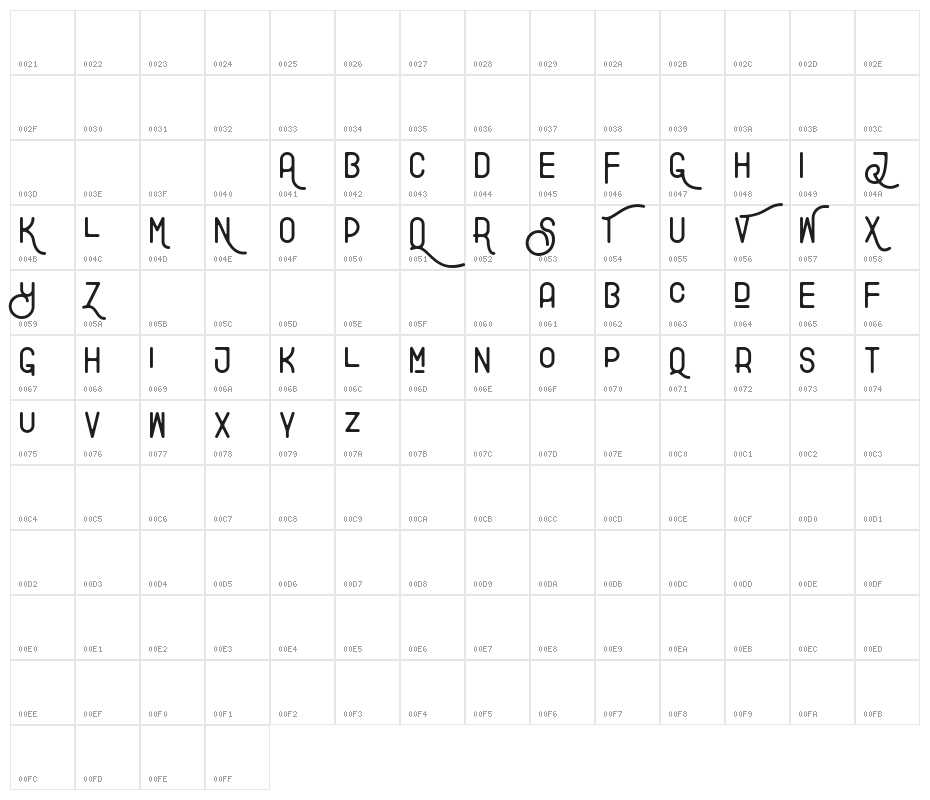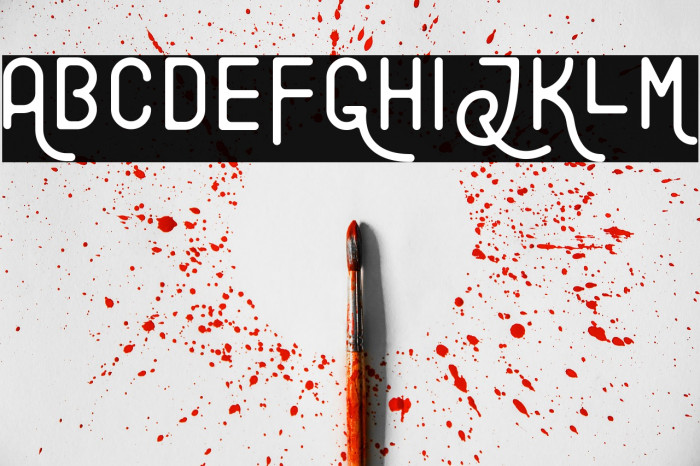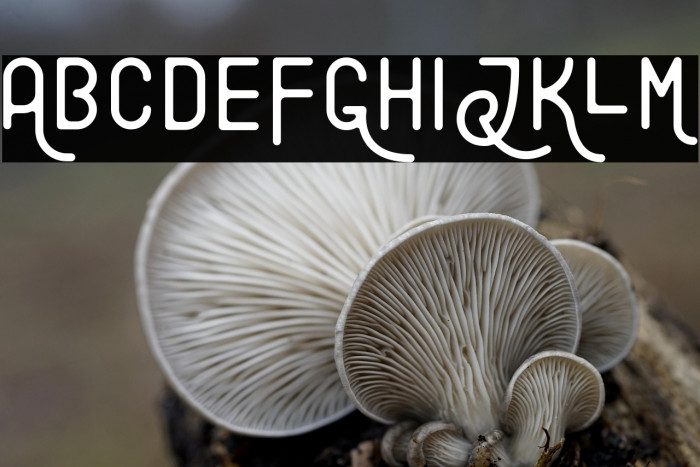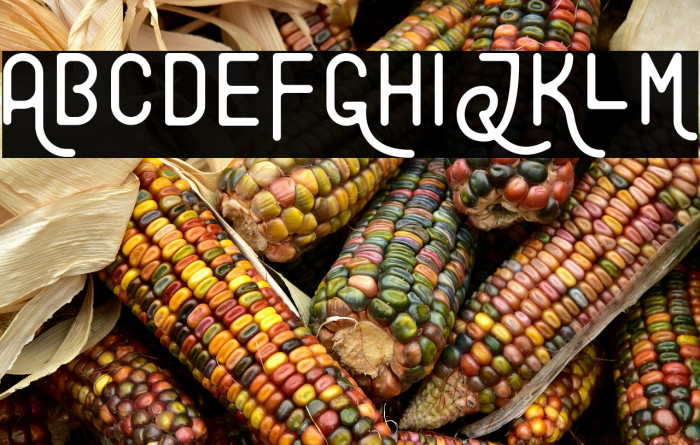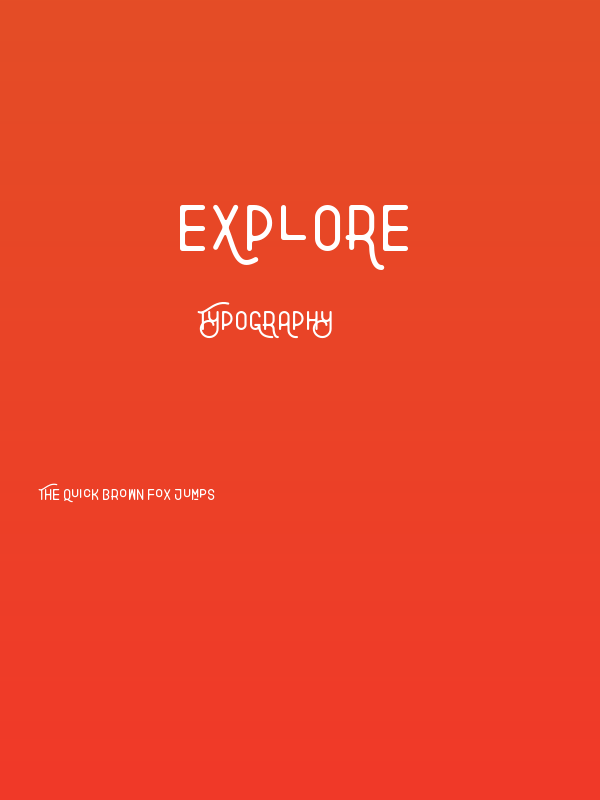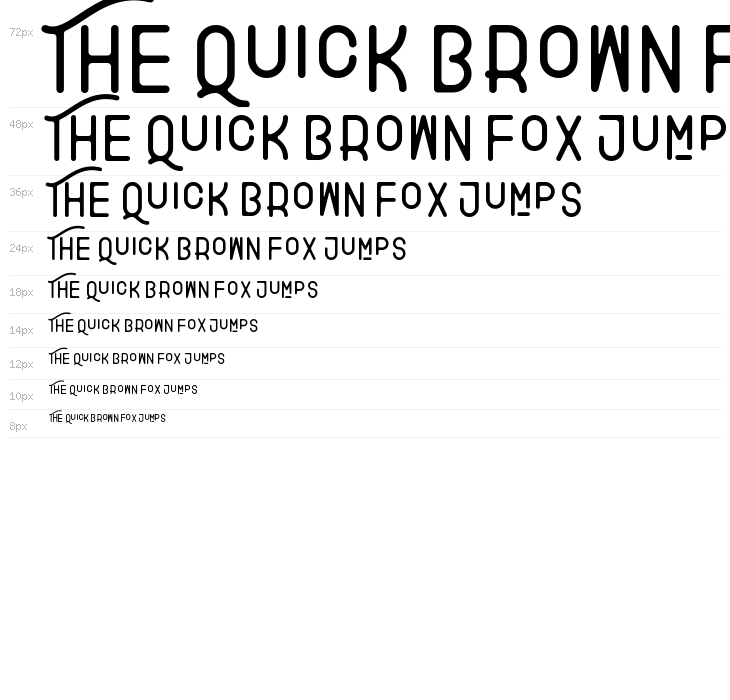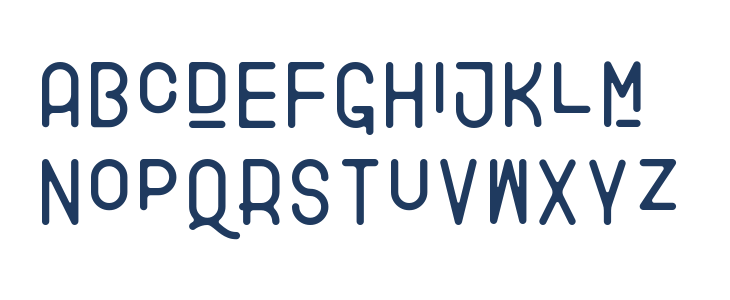
Explore Font
Explore Description
This font features a unique and playful design with a modern twist. The characters are bold and rounded, with a consistent stroke width that gives it a clean and contemporary look. The letters have a distinct geometric style, with some characters incorporating unexpected curves and angles, adding a touch of whimsy. The uppercase and lowercase letters maintain a uniform height, creating a harmonious appearance. This font is highly legible and versatile, making it suitable for a variety of design projects. Its boldness and clarity ensure it stands out, while the playful elements add character and charm.
Overall StyleModern
Use CaseHeadlines, Logos
Proposed ProjectsIdeal for branding, packaging, children's books, and modern advertising campaigns.